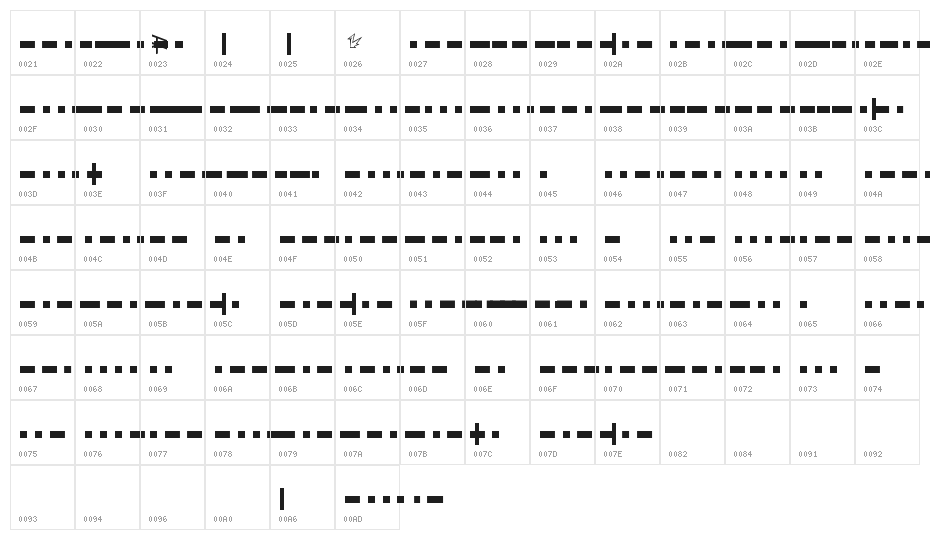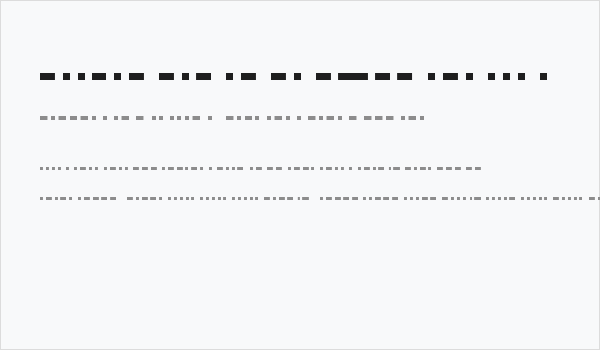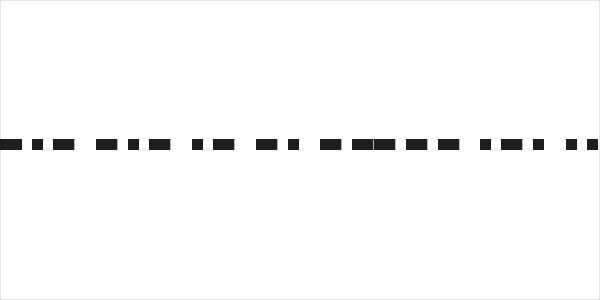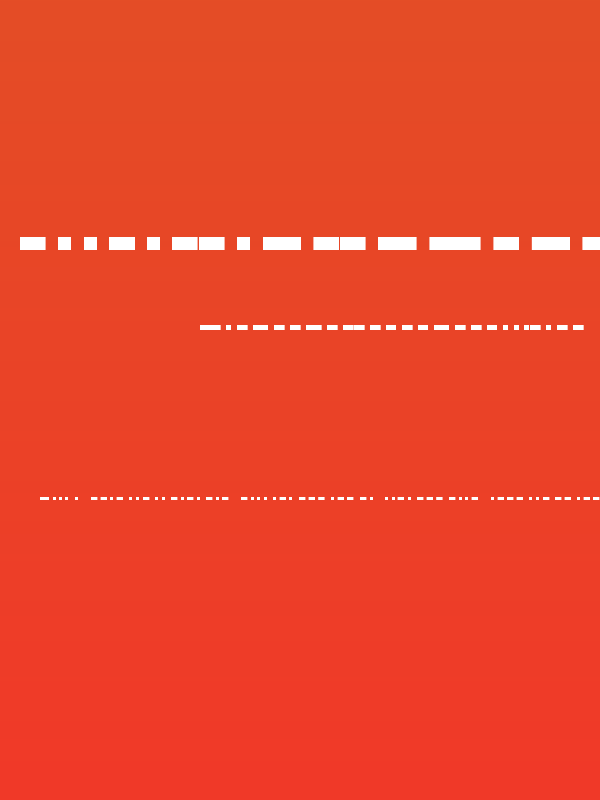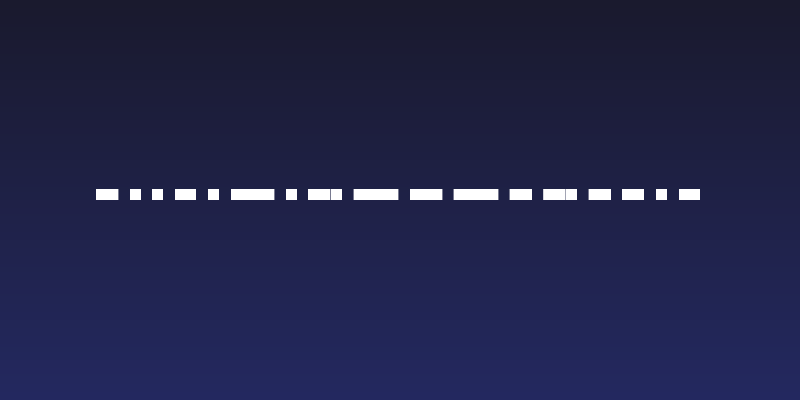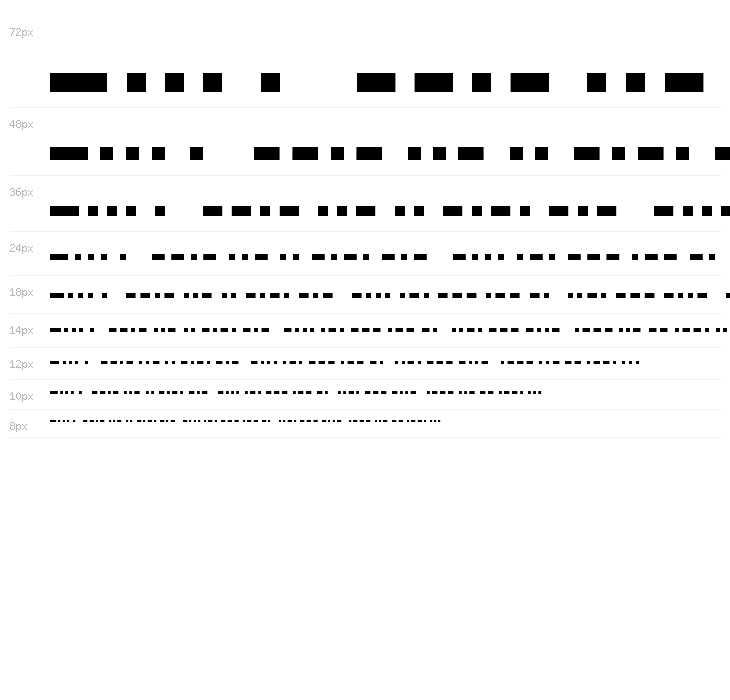
BukanMorse Font
BukanMorse Description
A decorative typeface that mimics the appearance of Morse code, using dots and dashes to form each character. The glyphs are abstract and geometric, prioritizing visual rhythm over legibility.
| Overall Style | Decorative, Experimental |
| Use Case | Logos, Posters, Themed headlines |
| Proposed Projects | Posters, experimental graphic design, cryptography-themed artwork, educational materials about Morse code. |